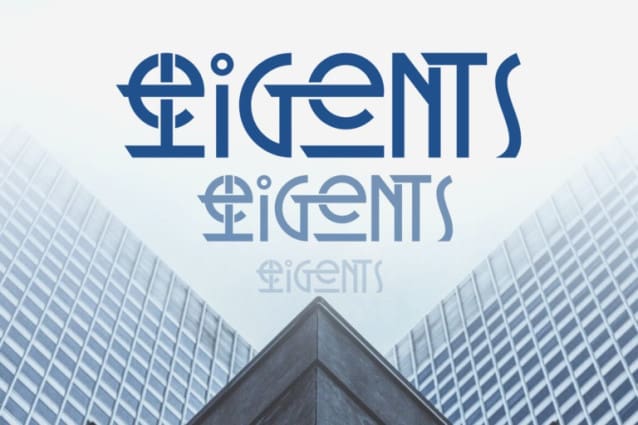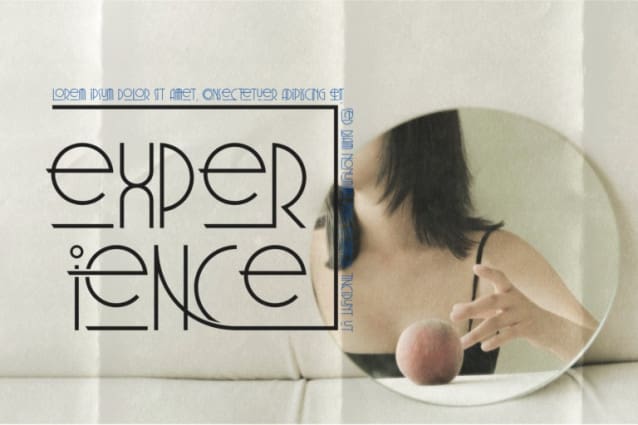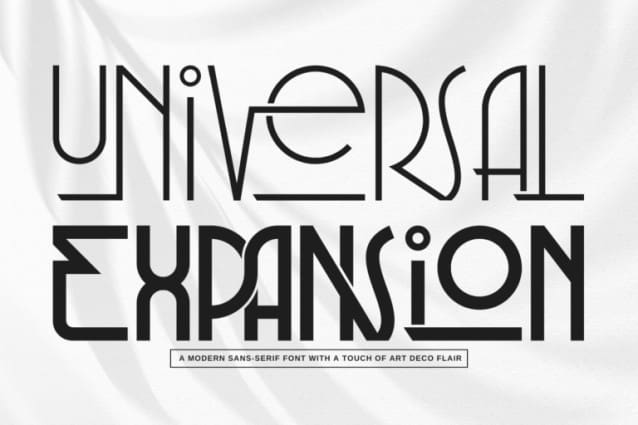
Universal Expansion Font
Universal Expansion Font a classic retro vintage all caps semi condensed sans serif typeface with an art-deco touch. We took an inspiration from the old Euro-American signage/advertising letters and mixed it with modern clean sans serif, carefully mouse-crafted to bring you the genuine feel of that era. Where Art Deco allure meets modern minimalism. This captivating font seamlessly blends vintage charm with contemporary elegance, featuring sleek lines and delicate strokes for a refined aesthetic.
Universal Expansion was built with OpenType features and includes 100 ligatures, alternate, numbers, punctuation, and it also supports other languages.